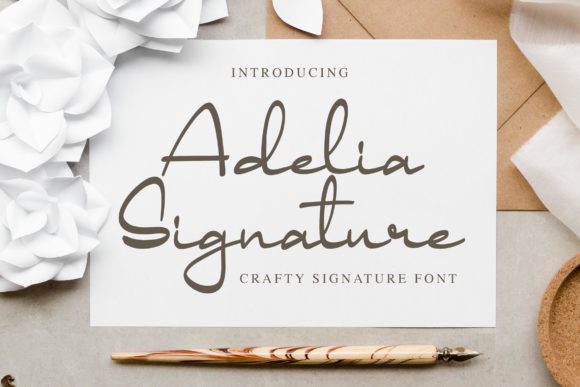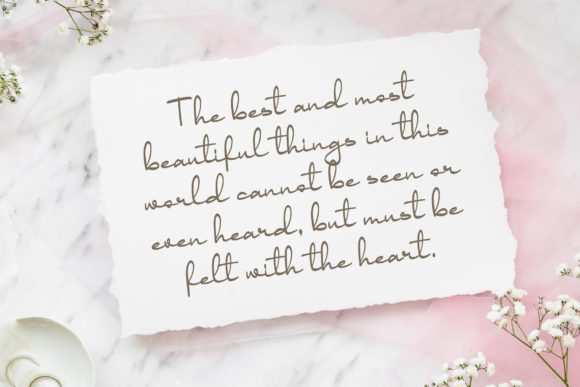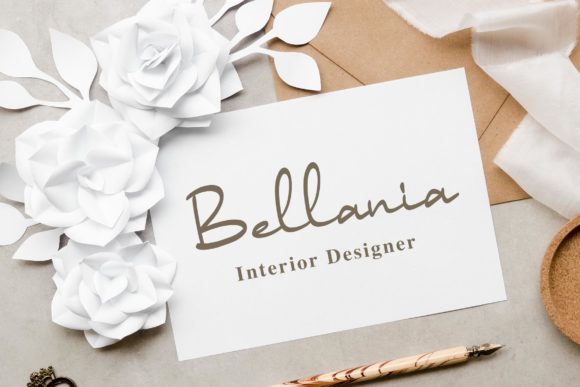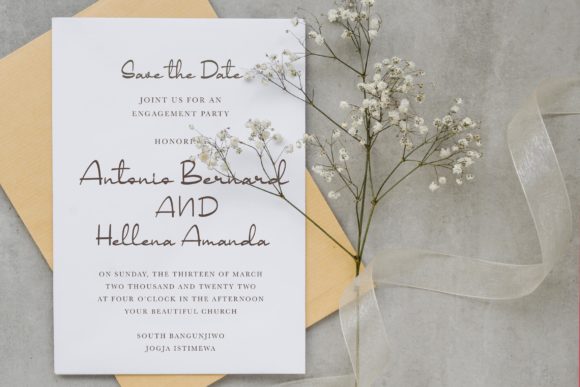
About the Adelia Signature Font
Elevate your designs with Adelia Signature Font, a font that combines sophistication with readability. Adelia Signature is a cute and relaxed handwritten font. It features gorgeous swashes and ligatures that make this script incredibly versatile. Whether you’re looking for fonts for Instagram or calligraphy scripts for DIY projects, _____ will turn any creative idea into a true piece of art!
Adelia Signature shines in projects requiring a touch of friendly elegance. It’s ideal for branding applications such as logos for boutiques, stationery, or wedding invitations, and works beautifully in short headlines and quotes on marketing materials or social media. Avoid using it for large blocks of text or UI elements; its playful nature isn’t suited for readability in extended passages.
Pairing Adelia with a clean sans-serif like Montserrat for body copy creates a balanced and sophisticated look. For a more playful feel, consider pairing it with a geometric sans-serif such as Futura. A contrasting serif like Playfair Display can add a touch of classic refinement.
Its overall personality is best described as cheerful and approachable, yet sophisticated. The swashes add a touch of whimsy without sacrificing legibility in smaller applications.